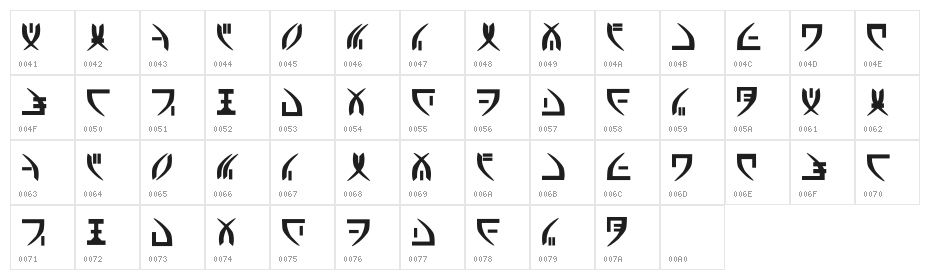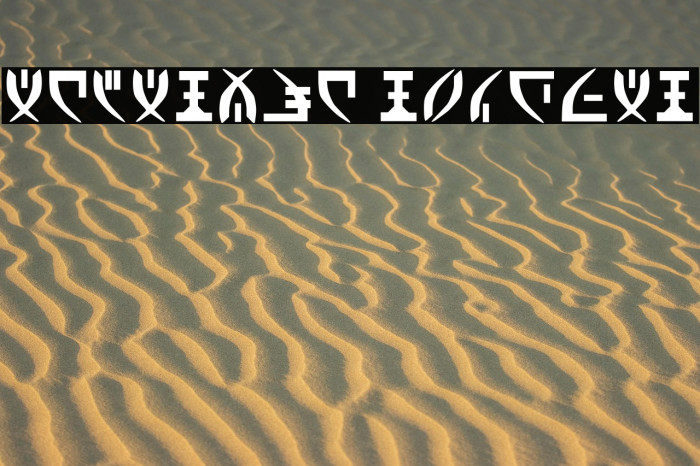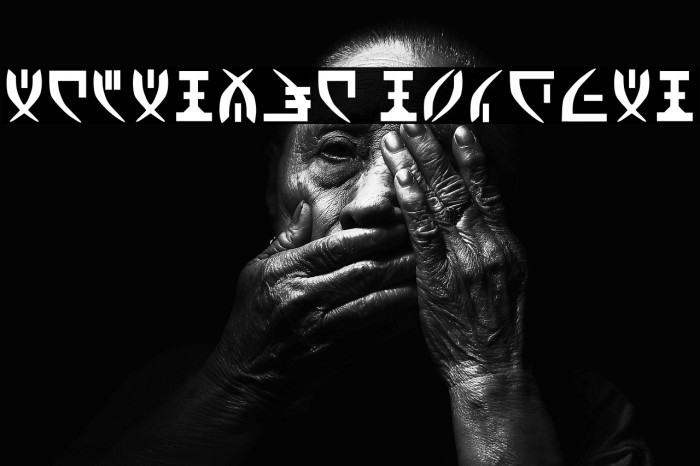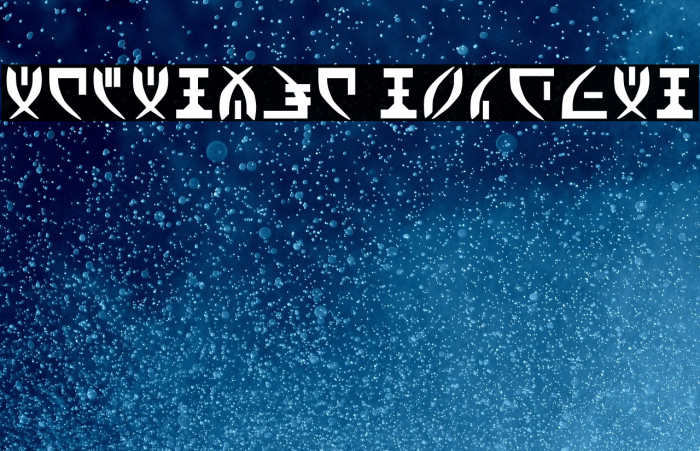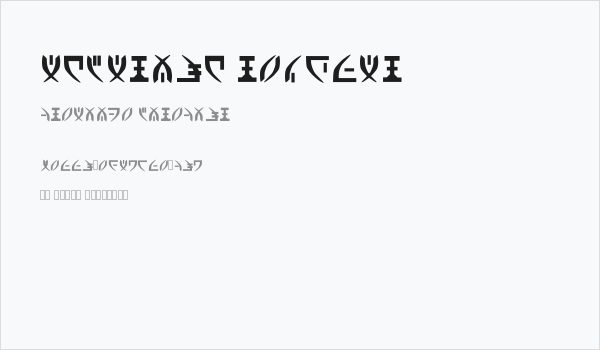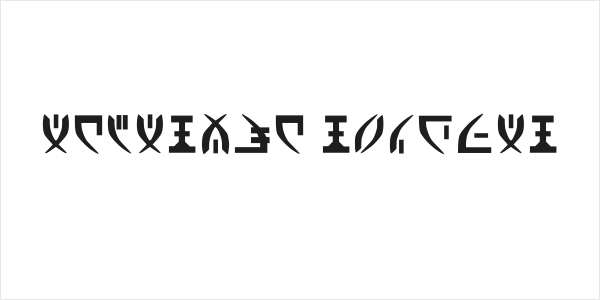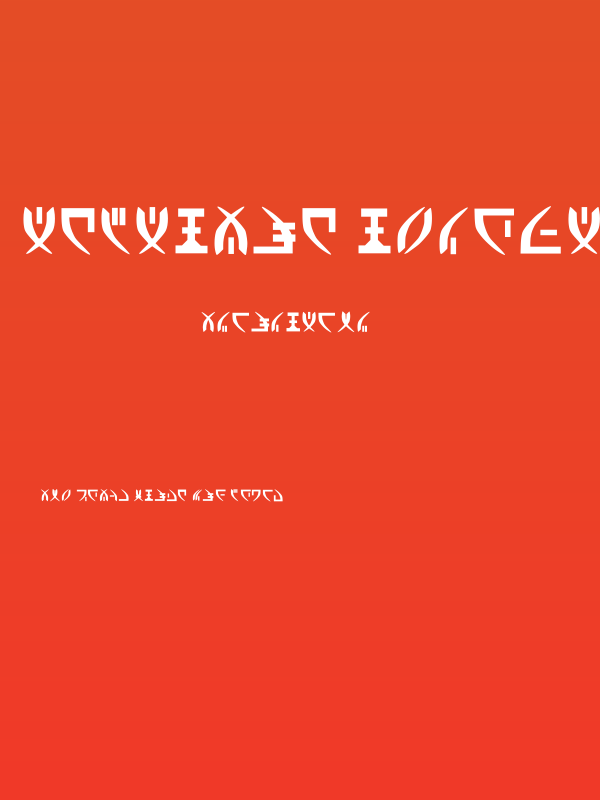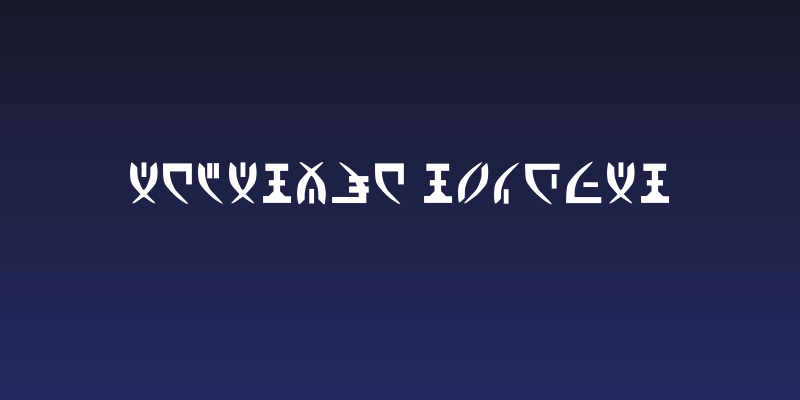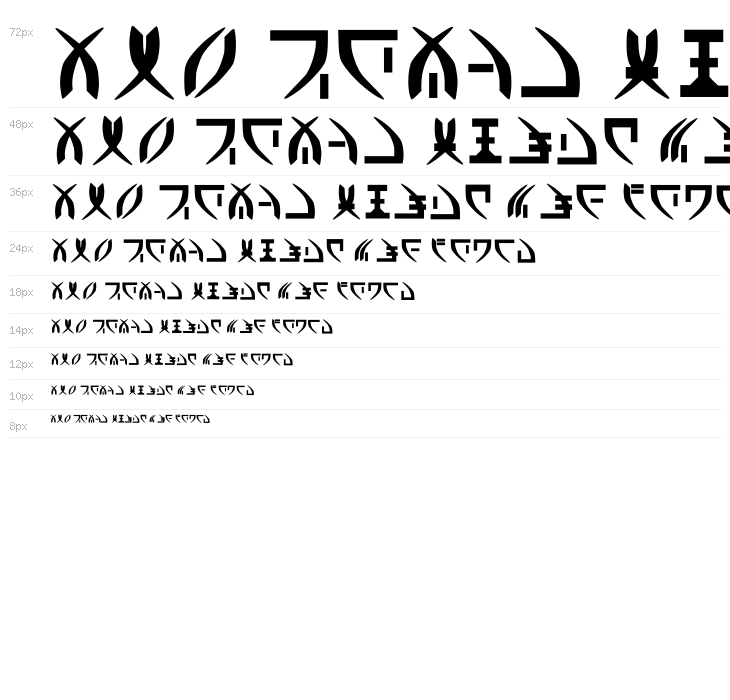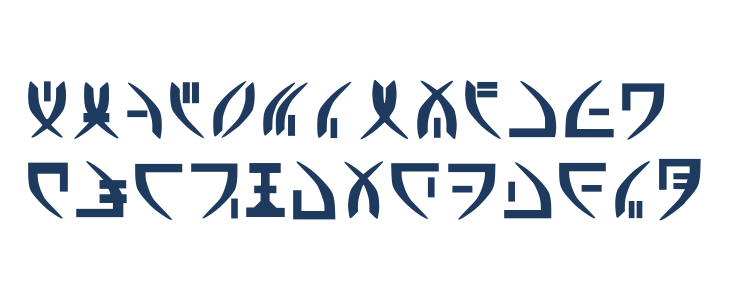
Andarion Regular Font
Andarion Regular Description
This font features a highly stylized and abstract design, characterized by bold, angular shapes and sharp edges. Each character is crafted with a futuristic aesthetic, incorporating geometric elements that give it a unique and striking appearance. The design is reminiscent of ancient scripts, yet it maintains a modern twist, making it suitable for creative and avant-garde projects. The characters are evenly spaced, ensuring readability despite their unconventional forms. This font is perfect for projects that require a distinct and memorable visual impact.
| Proposed Projects | Ideal for sci-fi themed projects, video game titles, movie posters, and branding that seeks a unique and modern edge. |